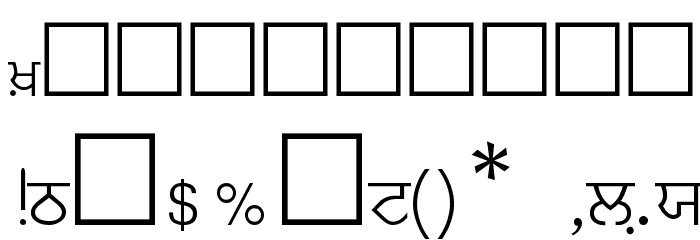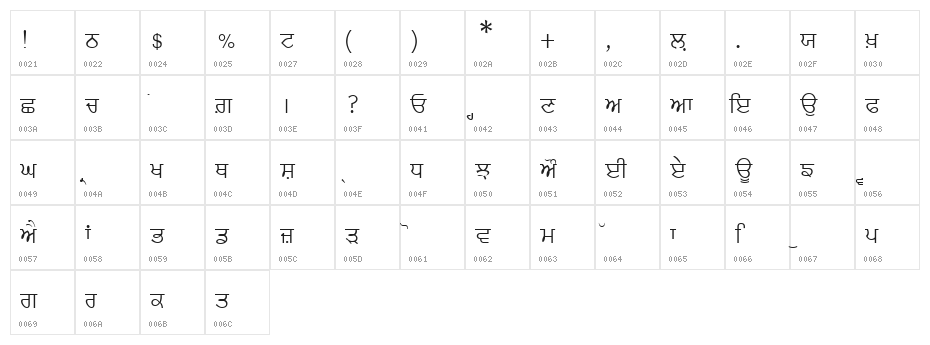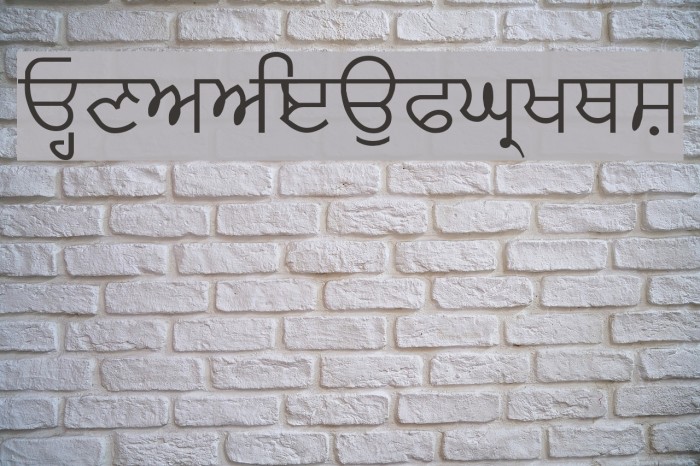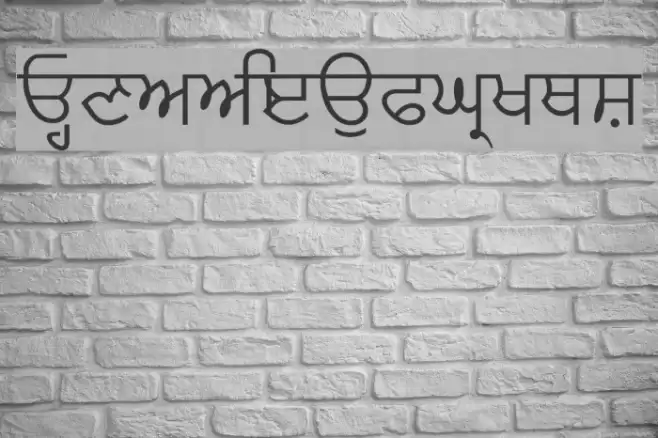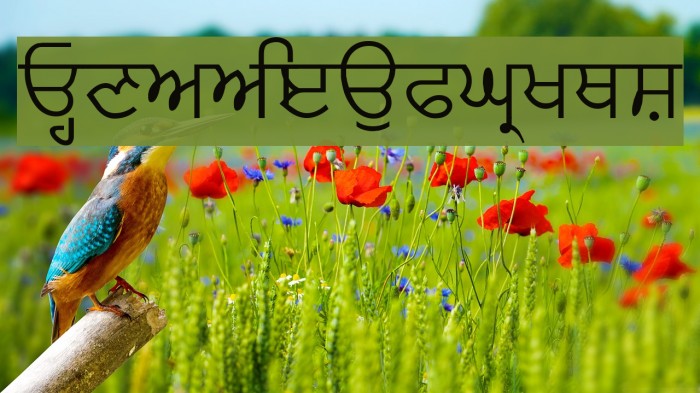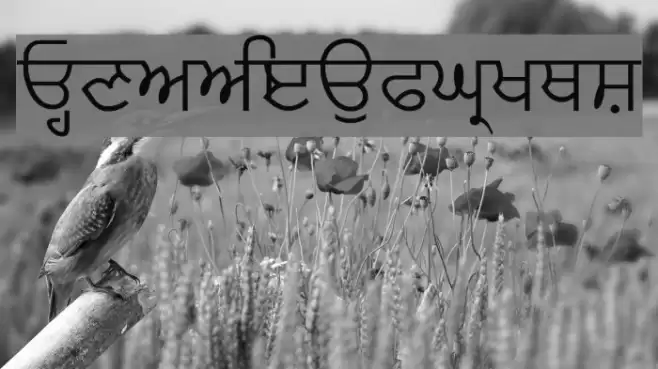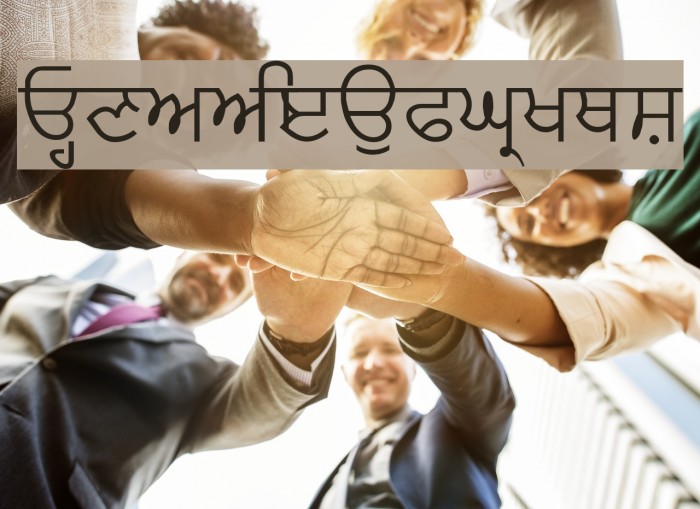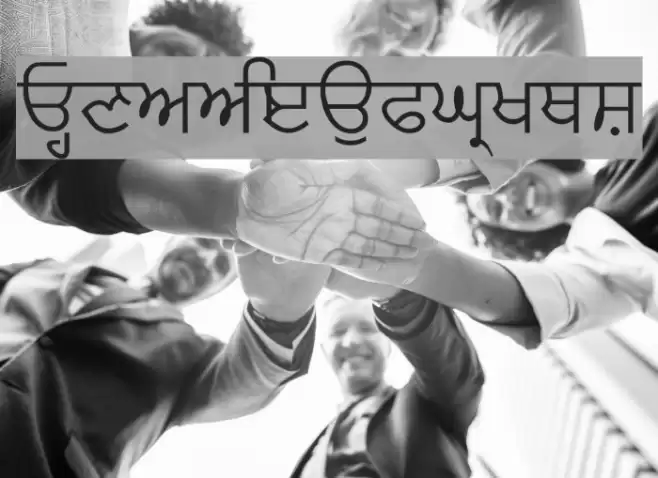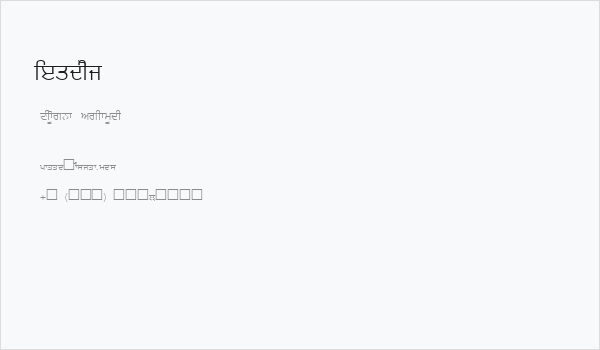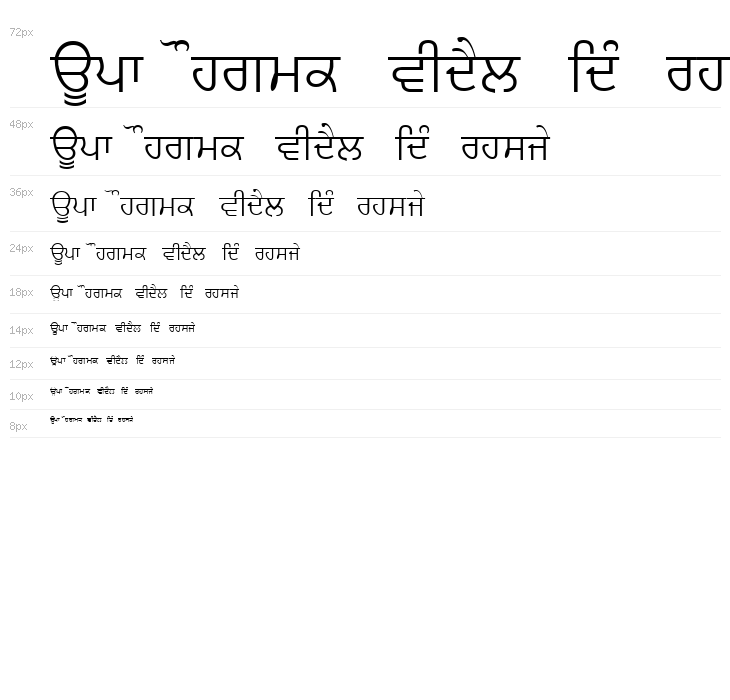
Florap Font
| Use Case | Headlines, Body text, Educational materials, Signage |
| Proposed Projects | Educational materials, signage, digital interfaces, headlines, and branding for Punjabi language content. |